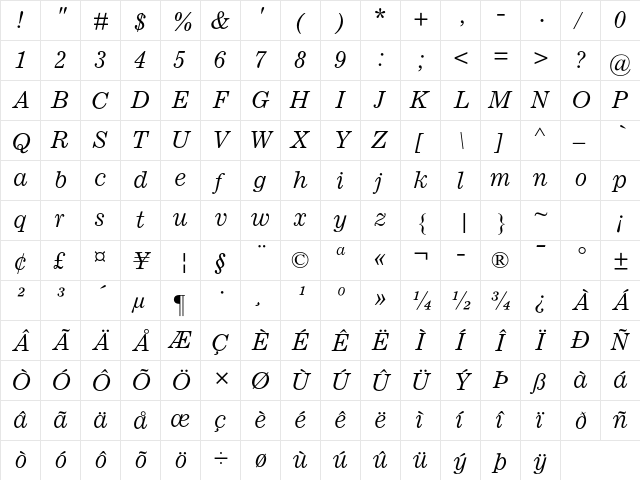
Ionic MT Std Italic Font Preview
Ionic MT Std Italic
Ionic MT Std Italic Font Details
Design Context for Ionic MT Std Typeface
Ionic MT Std takes a measured approach to typography — its balanced proportions and neutral character make it a reliable workhorse for both digital and print work. The dynamic lean of this cut emphasises speed and emphasis in any layout.